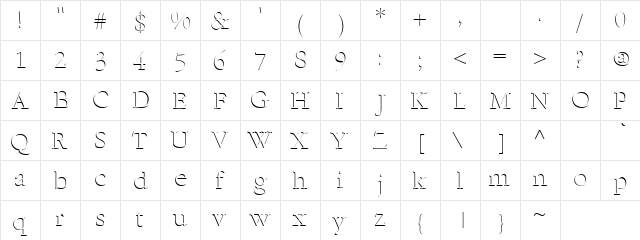
Suppliers Regular
Design Context for Suppliers Typeface
Suppliers offers clean, dependable letterforms without strong stylistic allegiance, making it a practical choice for designers who need flexibility.